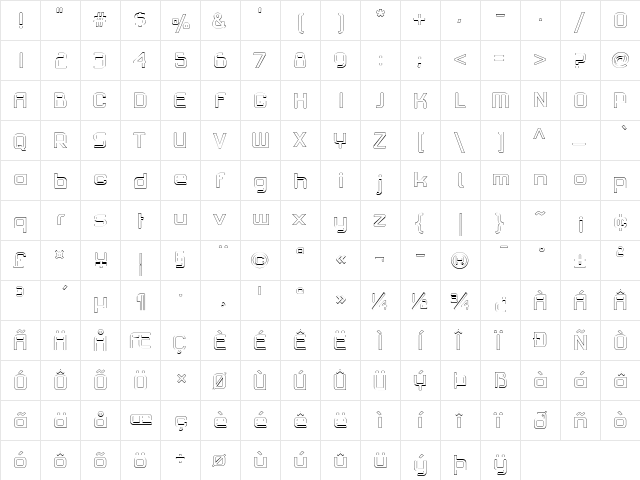
PF HausSquare Pro Light Outline
| Foundry | Parachute蠗orldwide |
| Designer | Elina Arapoglou |
Design Context for PF HausSquare Pro Typeface
PF HausSquare Pro is built around its visual character rather than neutral utility — its distinctive forms are designed to make an impression at display sizes. The delicate stroke weight brings airiness and refinement to layouts.
Font Pairing: Pair with a clean neutral sans-serif for body copy to let PF HausSquare Pro's character lead without overwhelming the composition.
Pro Tip: Use PF HausSquare Pro exclusively at display sizes — it was designed to be seen, not read at length. Let a neutral companion handle body copy.